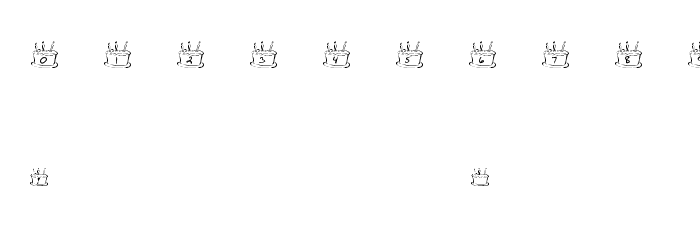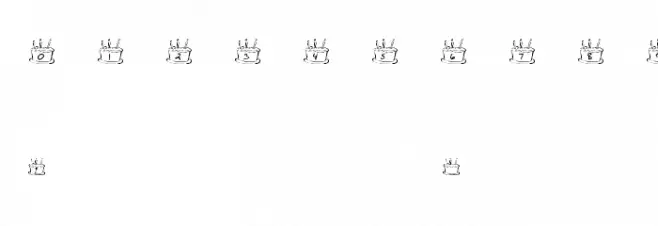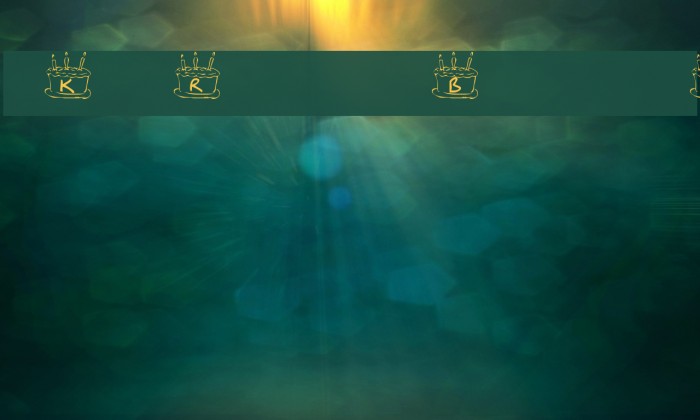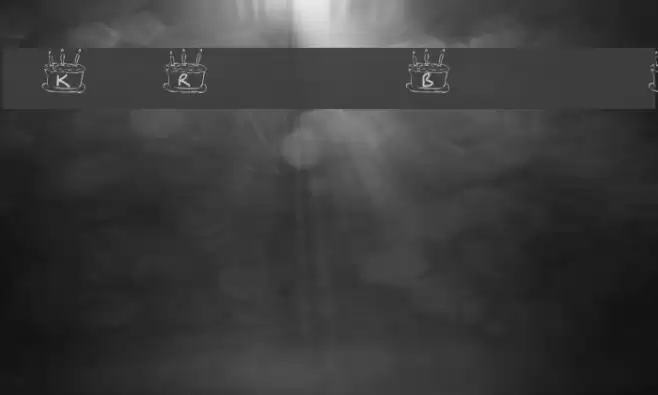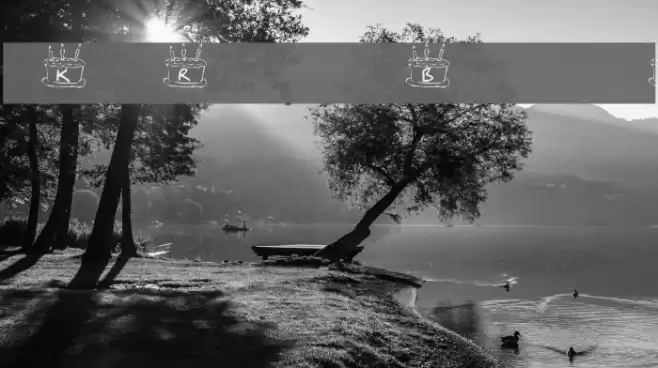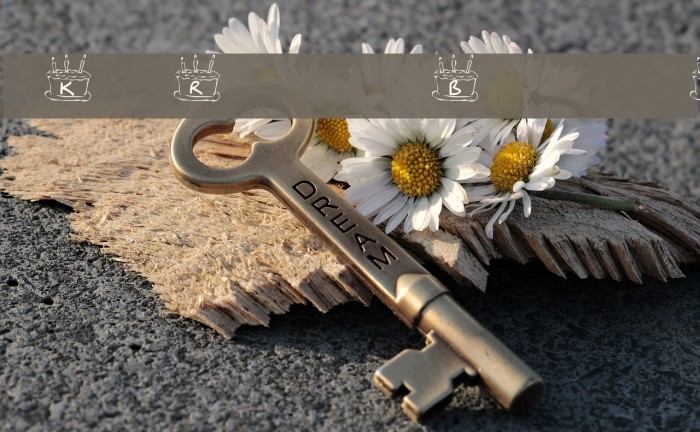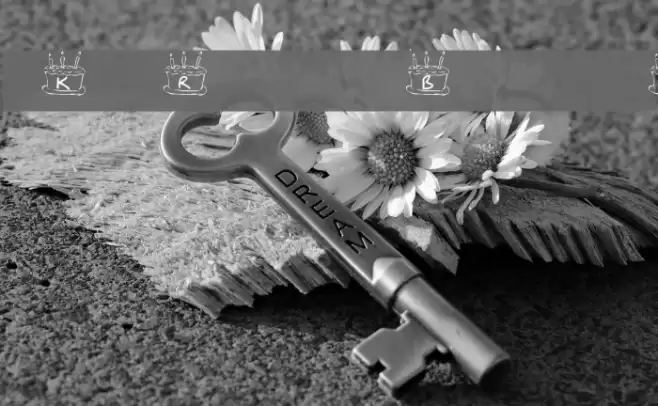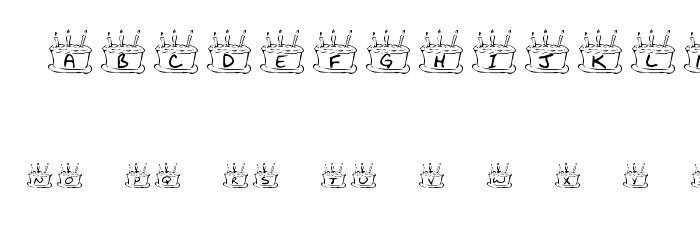
KR Birthday Cake Font
This whimsical and playful font features each character embedded within a birthday cake design, complete with candles on top. The letters and numbers are bold and clear, making them easily readable despite the decorative cake elements. The font exudes a celebratory and festive vibe, perfect for occasions that require a touch of fun and joy. The cakes are detailed with outlines and shading, adding depth and a hand-drawn feel to the overall design. This font is ideal for projects that aim to convey a sense of celebration and happiness.
A playful font with characters inside birthday cakes, perfect for festive occasions.
• Proposed Projects: Ideal for birthday invitations, party decorations, greeting cards, and festive banners.
• Category: Decorative/Display
• Contrast: Medium
• Overall Style: Decorative
• Use Case: Headlines, Logos, Invitations